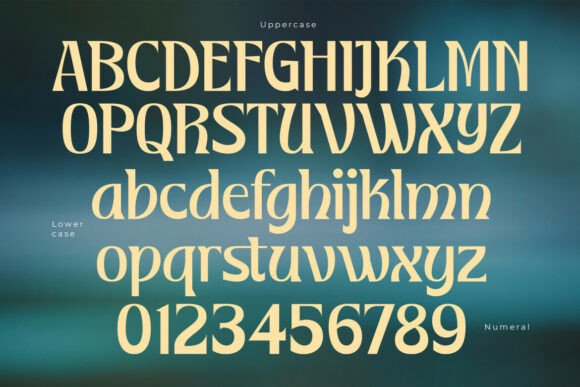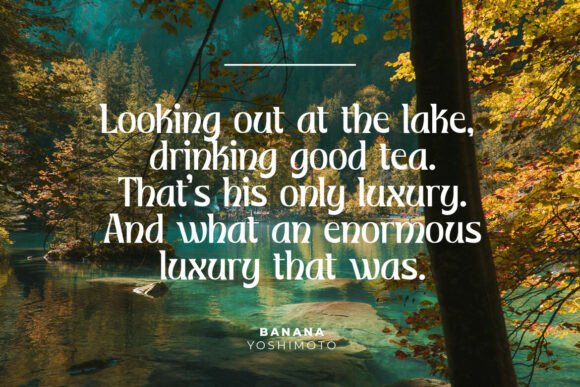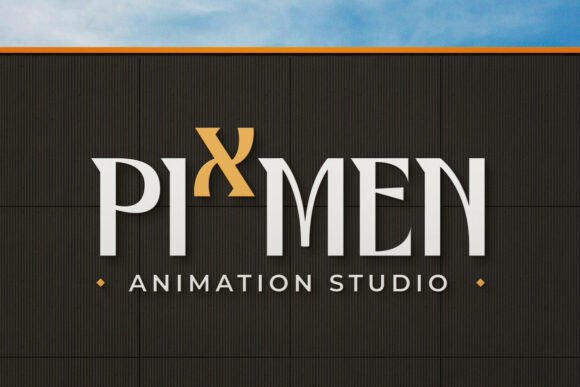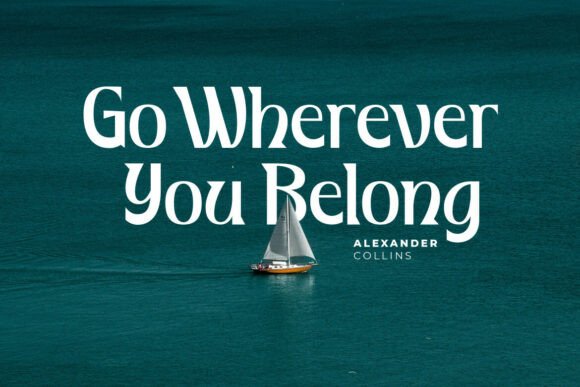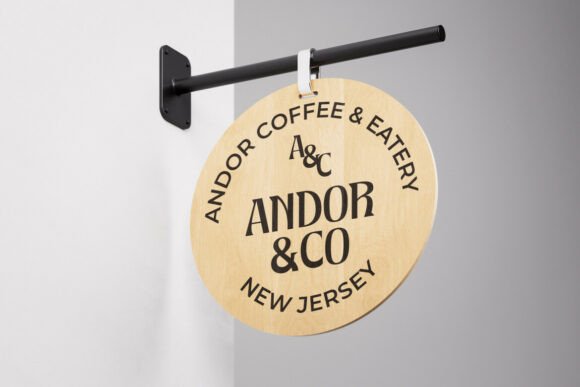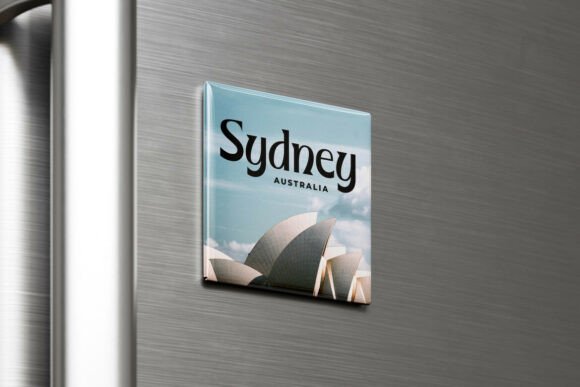
Introduction to Klystron Font
Have you ever stumbled upon a design element that instantly elevates your creative project to the next level? For me, that moment came when I discovered the Klystron Font. Its sleek, high-contrast display serif exuded a sense of timeless sophistication, making me wonder how I ever managed without it.
As a designer, I know how crucial it is to have access to high-quality design resources that can help us convey our message effectively. The Klystron Font is one such resource that offers a perfect balance between classic editorial style and contemporary professional branding. Its tall letterforms and refined strokes create a commanding presence in headlines, titles, and logo marks, making it an ideal choice for fashion magazines, exclusive packaging, and sophisticated visual identities.
Key Features of Klystron Font
- High-quality, professional font design suitable for a creative project.
- Designed to be highly legible at various font sizes and resolutions, making it ideal for a range of creative projects.
- Supports a wide range of languages, making it a versatile font for international design projects.
- Can be easily customized to fit the unique needs of your creative project, thanks to its highly adaptable design.
Honest Review: Klystron Font
I recently stumbled upon the Klystron Font, a high-quality design resource that’s perfect for any creative project. The first thing that caught my eye was the transparent background, which makes it easy to place this font over any image or background.
What works well about the Klystron Font is its versatility. It’s a clean and modern font that can be used for a wide range of applications, from headings to body text. The font is also highly legible, making it perfect for digital displays or print materials.
- ✨ High-quality design that’s perfect for any creative project
- ✨ Transparent background for easy placement
- ✨ Versatile font that’s suitable for headings and body text
- ✨ Highly legible
However, there are a few limitations to consider. The font only comes in a few weights, which may limit its use in certain applications. Additionally, the font may not be suitable for all types of creative projects, particularly those that require a more traditional or vintage look.
Overall, I’m impressed with the Klystron Font and would recommend it to anyone looking for a high-quality design resource. With its transparent background and versatile design, it’s a great choice for any creative project that requires a modern and clean look.
Tips for Getting the Most Out of Klystron Font
For a high-quality design, use Klystron Font on a transparent background to create a clean and modern look. This font is perfect for creative projects that require a unique and eye-catching design. Consider pairing it with other design resources to create a cohesive look.